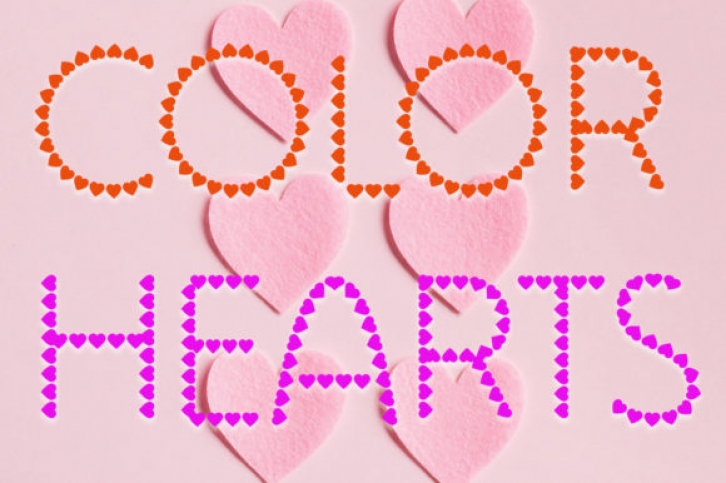
Color Hearts is a fun and incredibly unique color SVG font.
It works great for Valentine’s day cards, wedding invites, kids apparel, T-shirts and more.